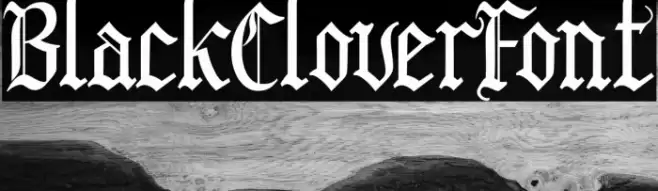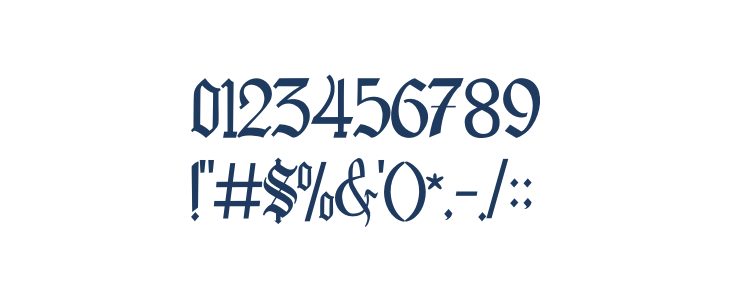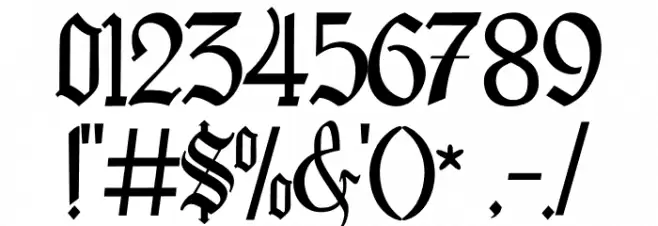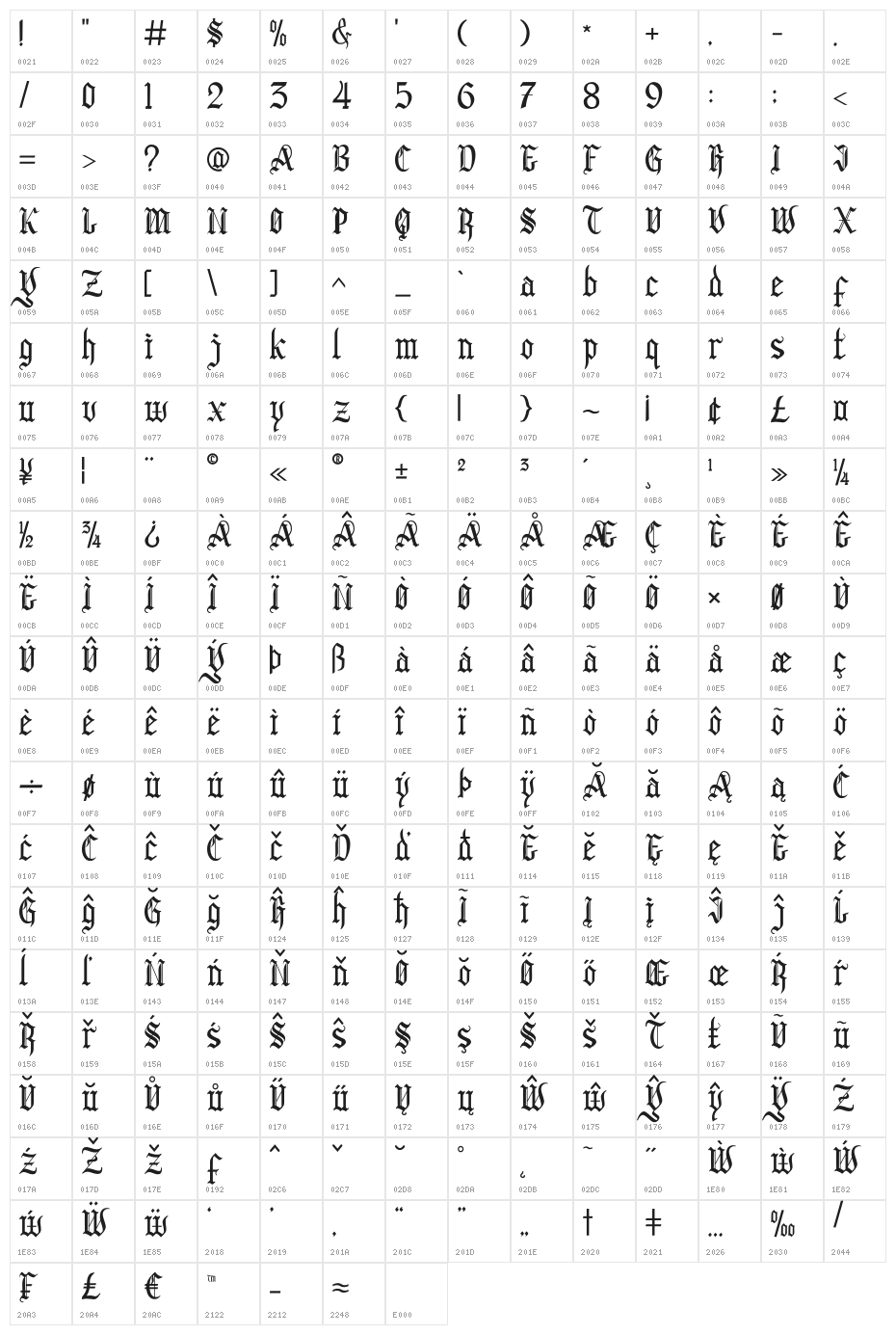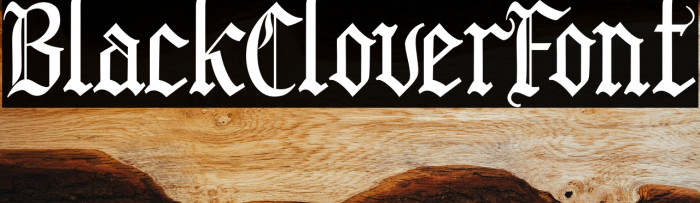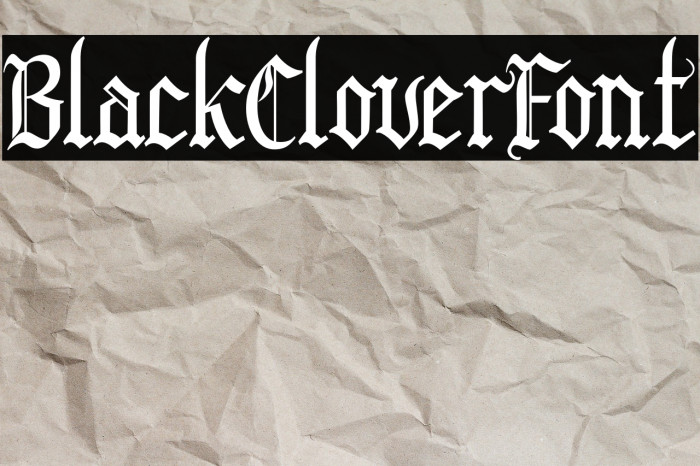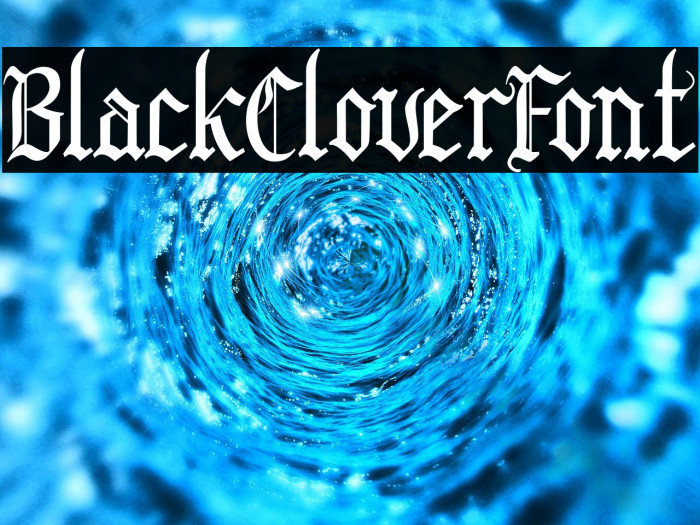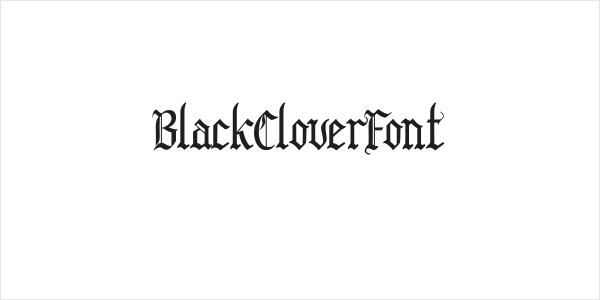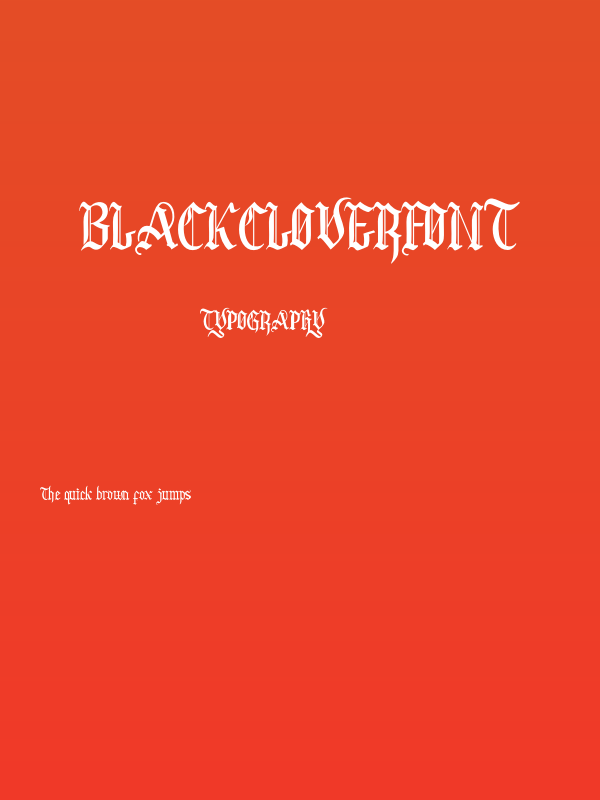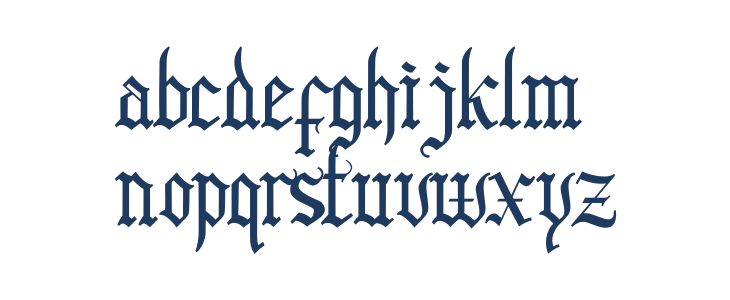
This font embodies a classic Blackletter style, characterized by its intricate and ornate letterforms. The uppercase and lowercase letters feature sharp, angular strokes with dramatic flourishes, reminiscent of medieval script. The numbers and special characters maintain this elaborate design, ensuring consistency across all glyphs. The font's bold presence and high contrast between thick and thin strokes make it stand out, while its historical aesthetic evokes a sense of tradition and elegance. This typeface is ideal for projects that require a touch of vintage or gothic flair.
A bold, high-contrast Blackletter font with intricate, medieval-inspired designs from Regular fonts.
- Proposed Projects: Ideal for historical documents, fantasy book covers, gothic-themed designs, and branding that requires a vintage or medieval touch.
- Overall Style: Vintage
- Use Case: Logos, Headlines, Decorative text